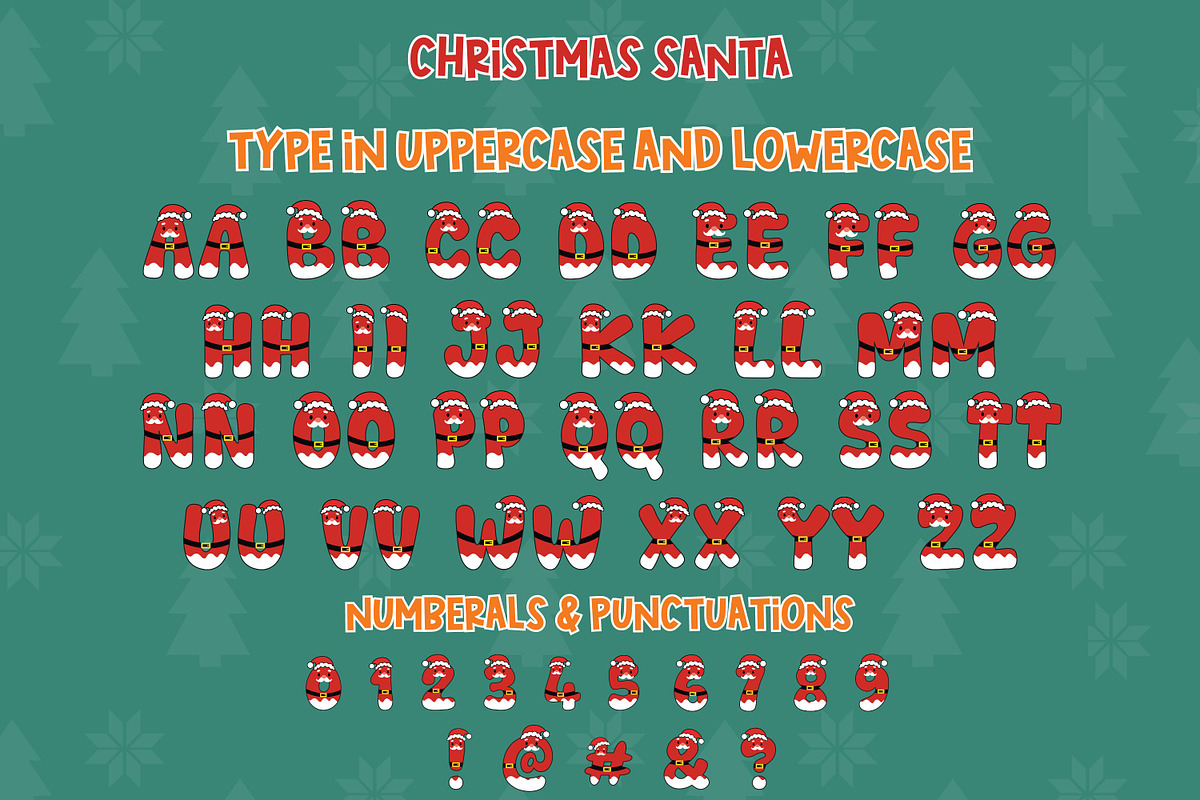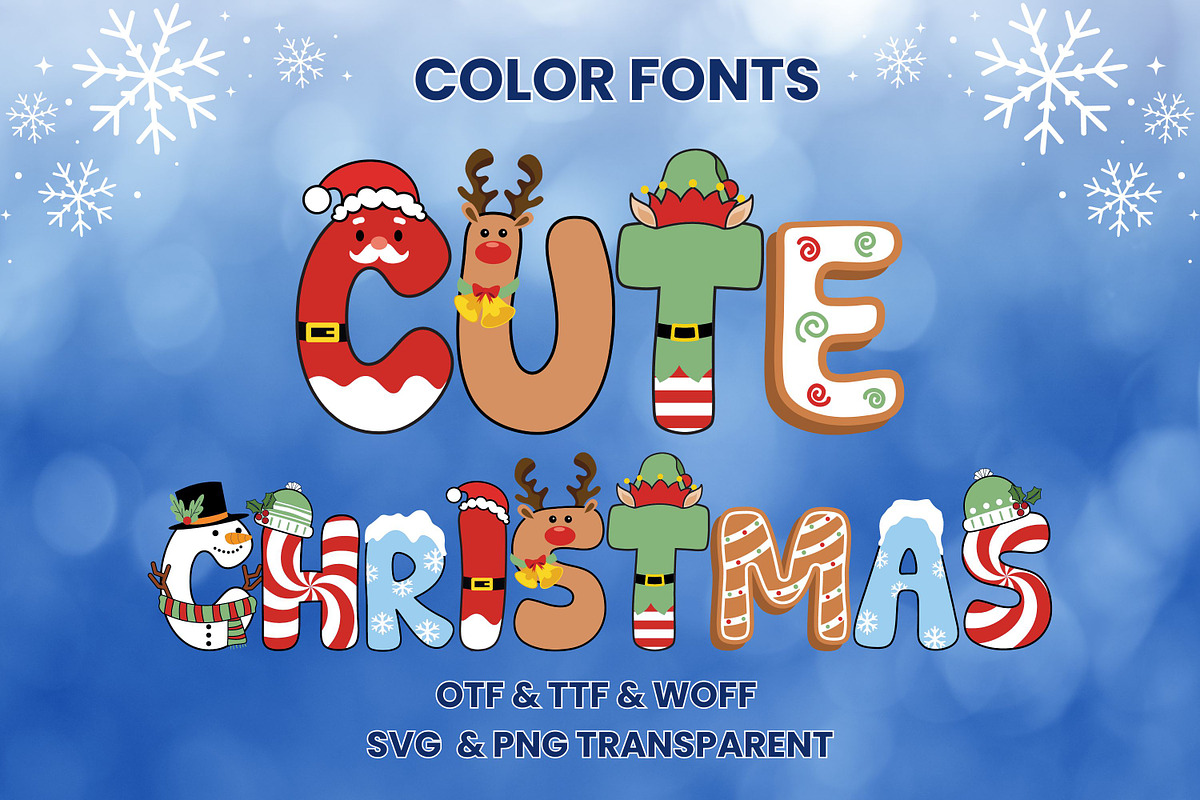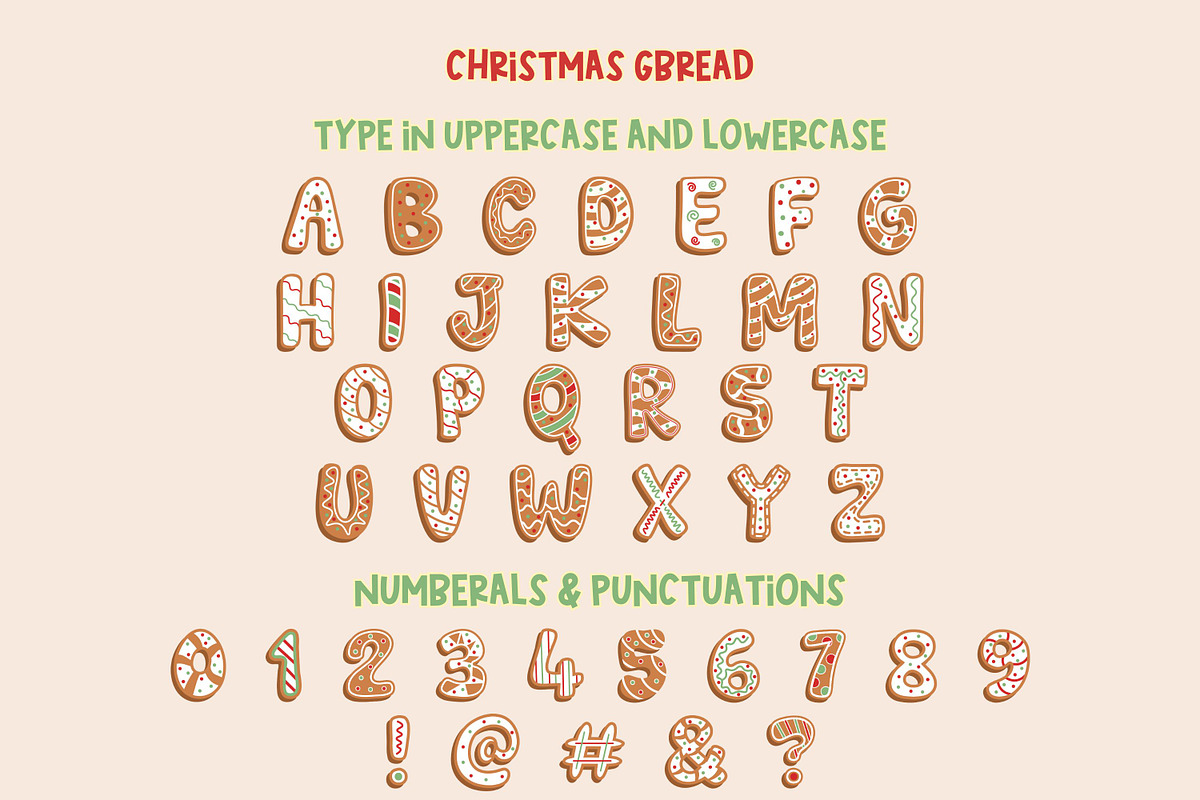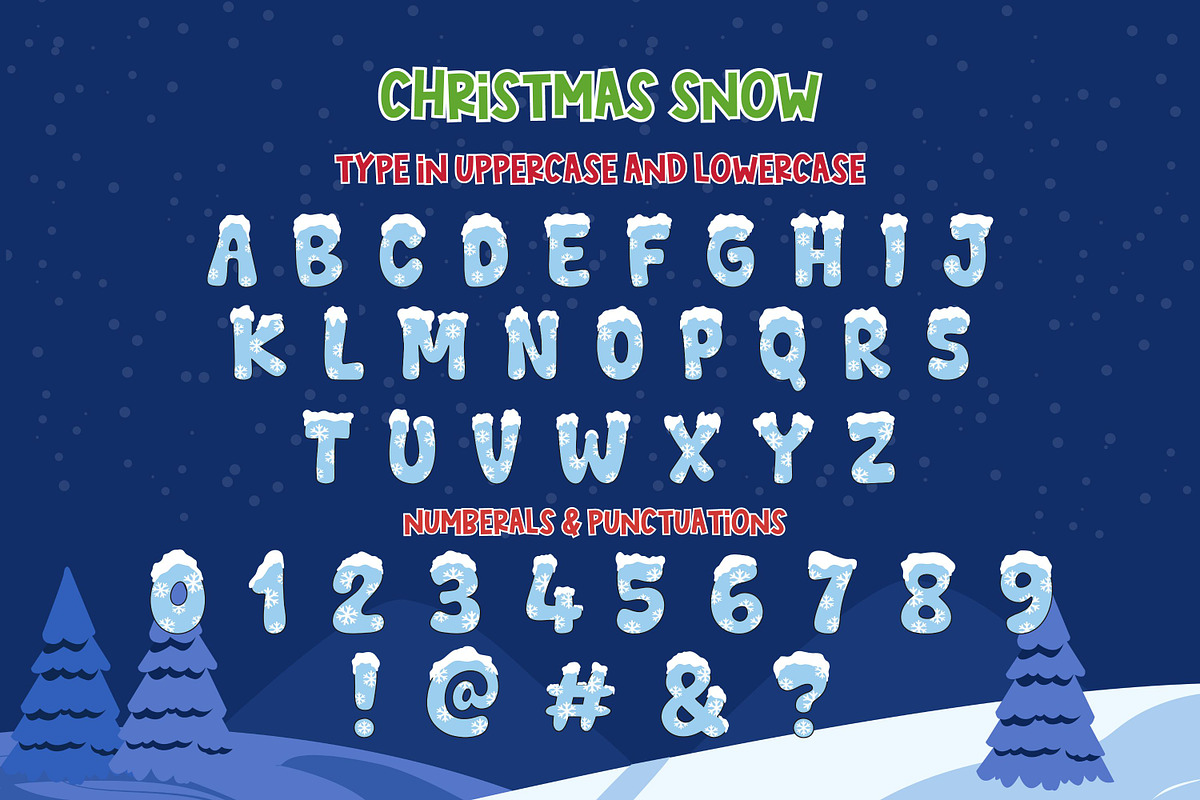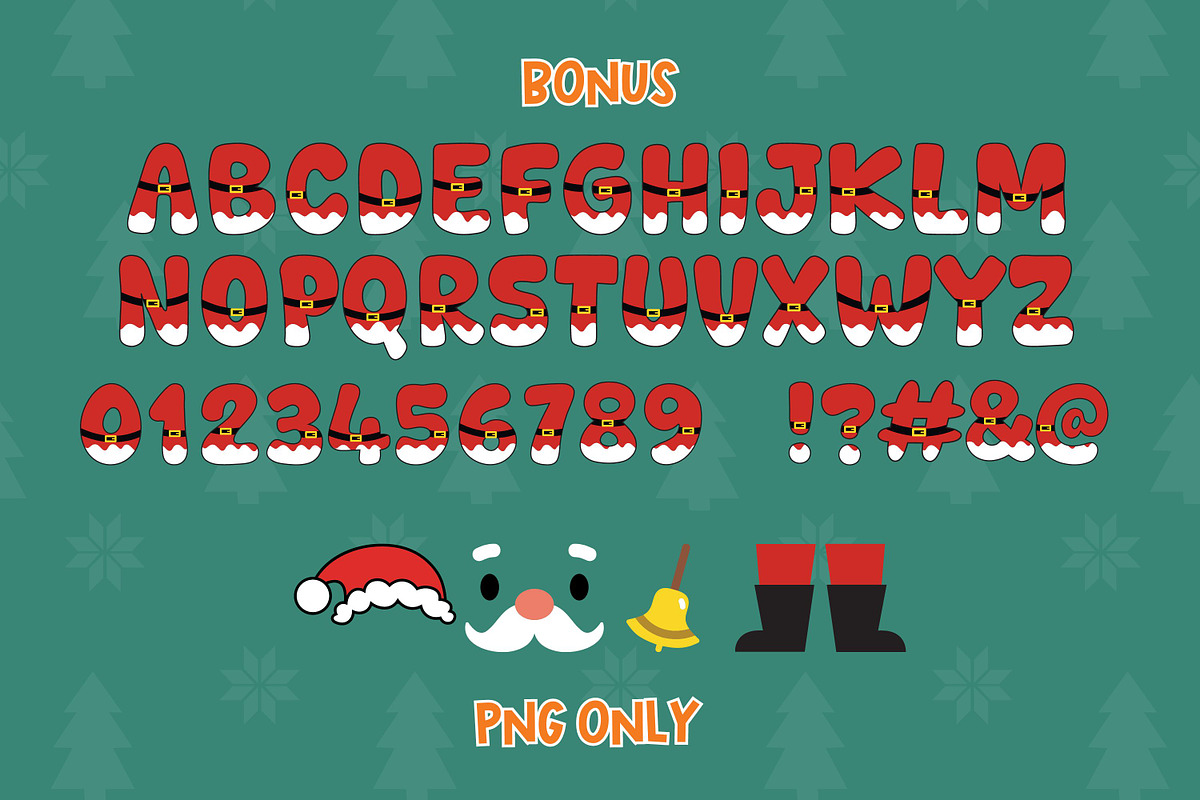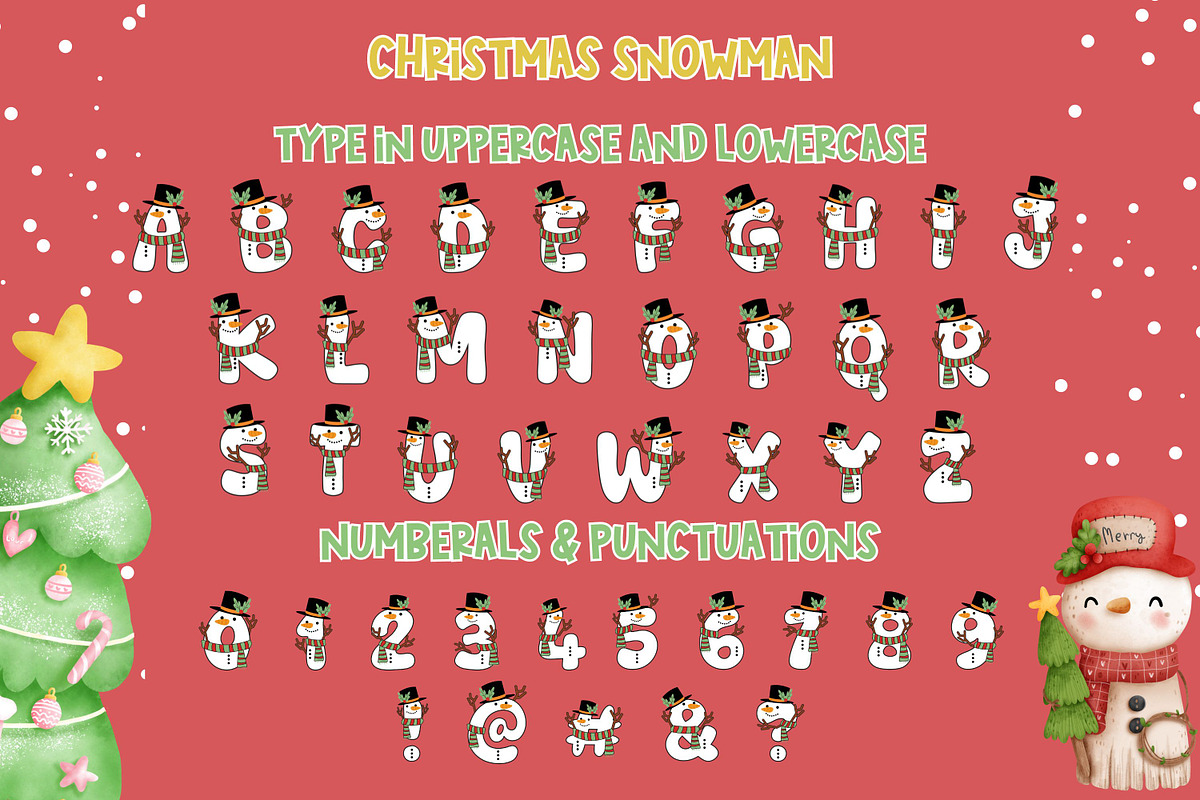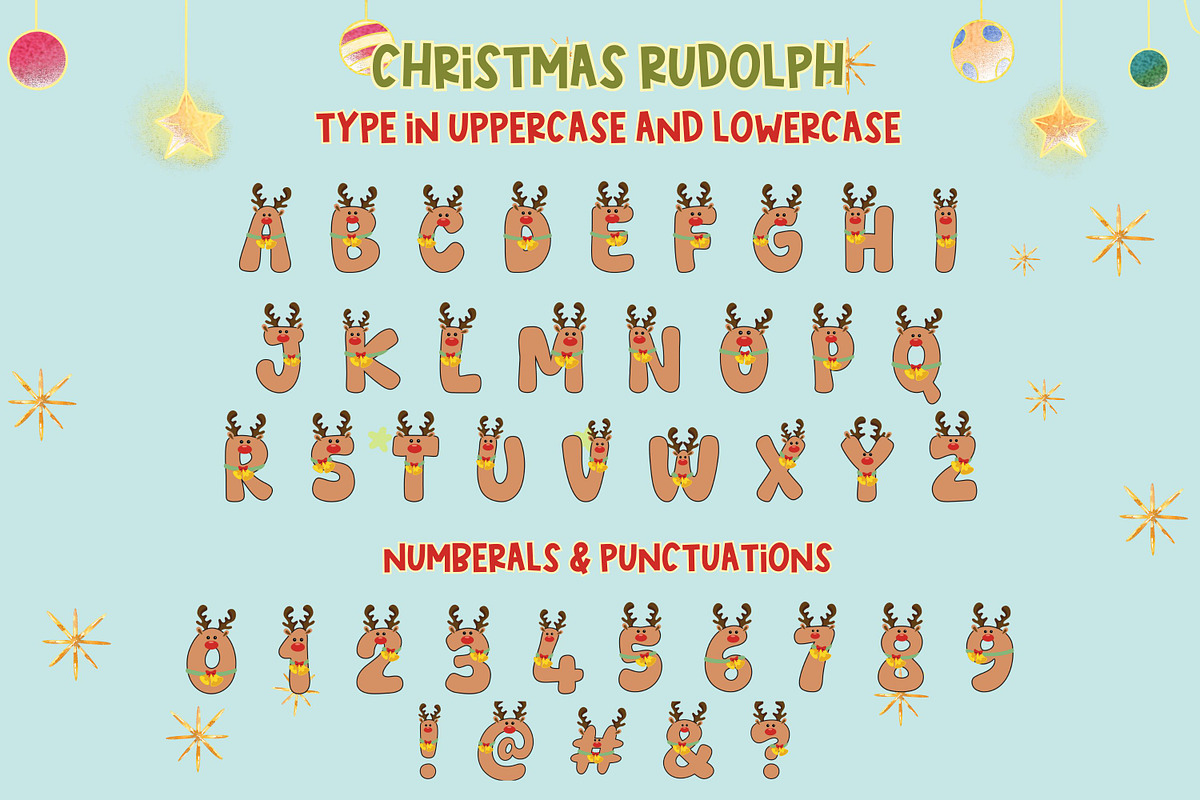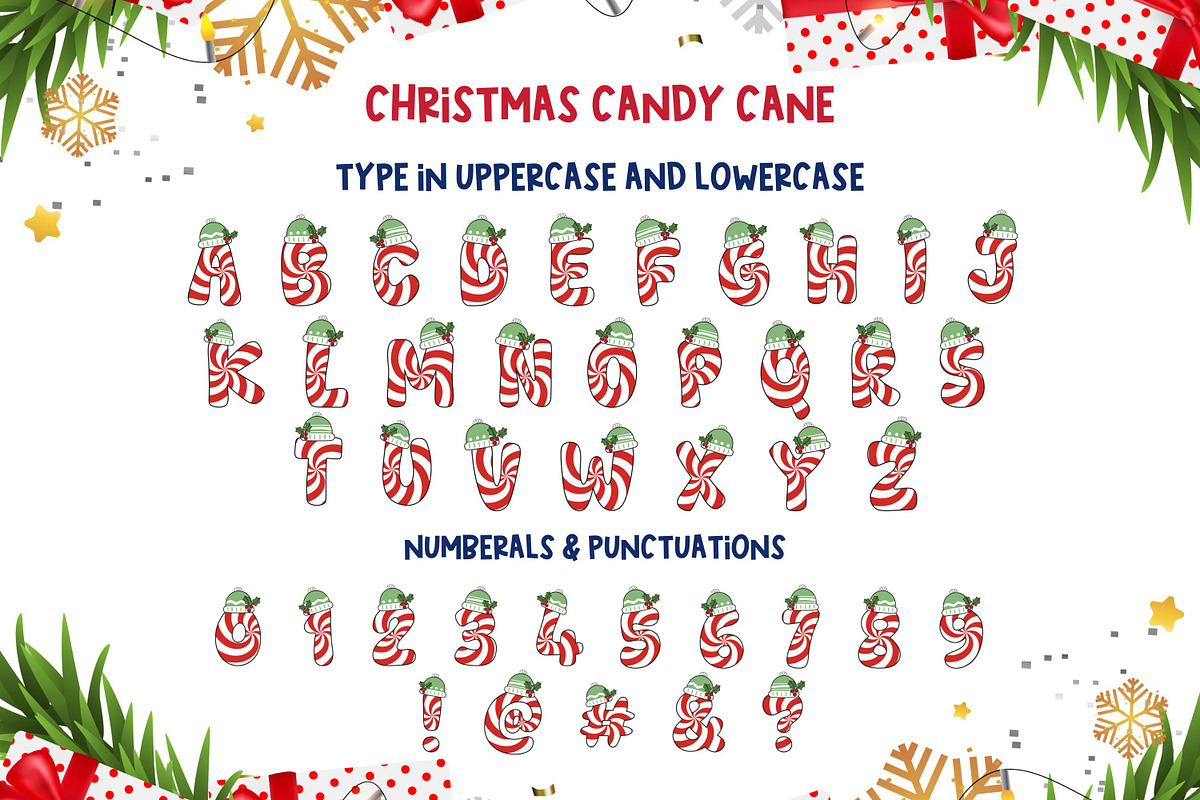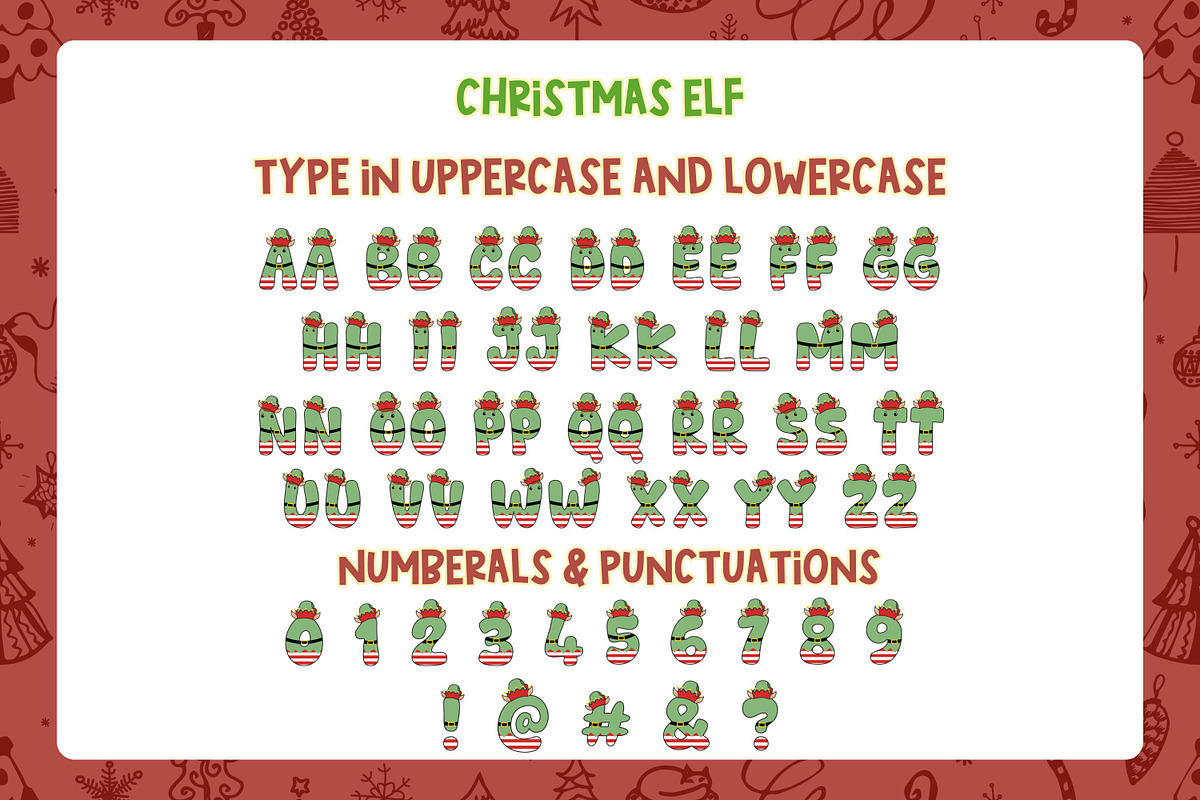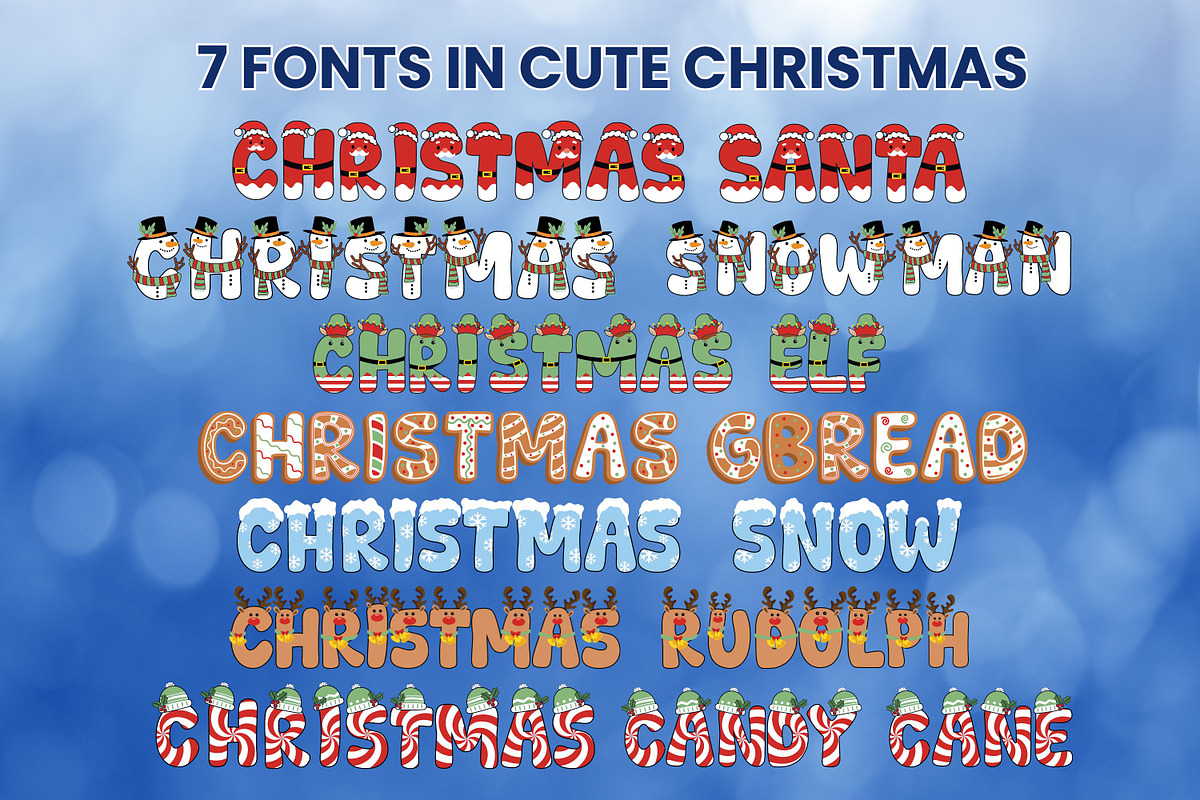
Cute Christmas - 7 Color Fonts
Cute Christmas is a fun and cheerful color font. It will look fantastic on all your projects including t-shirt designs, mugs, crafts, cards, stickers, and more!
Cute Christmas included:
✅Christmas Santa
✅Christmas Snowman
✅Christmas Elf
✅Christmas Gbread
✅Christmas Snow
✅Christmas Rudolph
✅Christmas Candy Cane